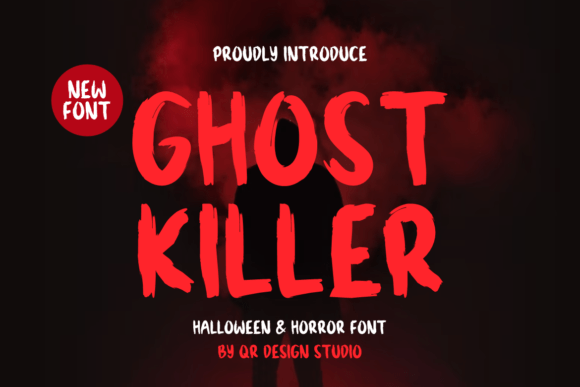
Dare to be hauntingly captivating with Ghost Killer Font, the ultimate display font that conjures an aura of mystery and intrigue. This font is not for the faint of heart; it's a bold and spooky typeface that demands attention and leaves a lasting impression. Unleash your creativity and let Ghost Killer Font be your secret weapon for captivating logos, spine-chilling Halloween designs, and captivating social media posts.
Step into the realm of the supernatural with Ghost Killer Font and watch your designs transform into eerie masterpieces. It's the perfect choice for creating invitations that send shivers down the spine, posters that whisper tales of the unknown, and decorations that make your heart race.
But don't let its spooky demeanor fool you; Ghost Killer Font has a playful side too. Use it to add a touch of whimsy to greeting cards, personal projects, and digital designs. Its unique curves and sharp edges create a dynamic contrast that will make your words dance off the page.
Whether you're a seasoned designer or a creative enthusiast, Ghost Killer Font is the key to unlocking your artistic potential. Its versatility knows no bounds, making it the perfect companion for a multitude of projects. So, embrace the dark side of creativity and let Ghost Killer Font haunt your designs with its spellbinding charm.
Don't be afraid to let your imagination run wild as you explore the endless possibilities of Ghost Killer Font. It's waiting to be unleashed upon the world, ready to cast its spell on all who behold it. Dare to be different, dare to be spooky, and dare to make a statement with Ghost Killer Font.
Become a master of the macabre and let Ghost Killer Font be your guiding spirit. It's time to embrace the darkness and let your creativity soar. Download Ghost Killer Font today and watch as your designs come alive with an eerie elegance that will leave your audience spellbound.